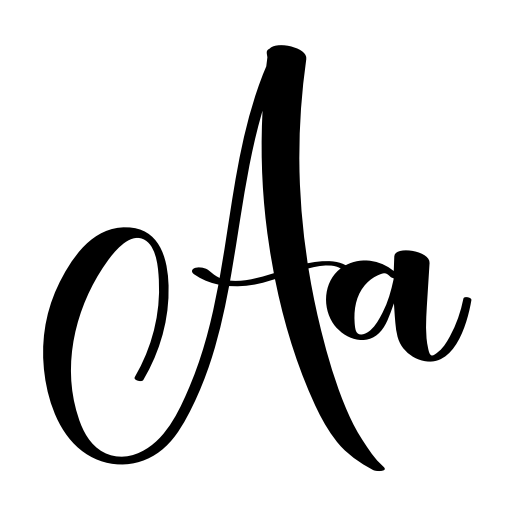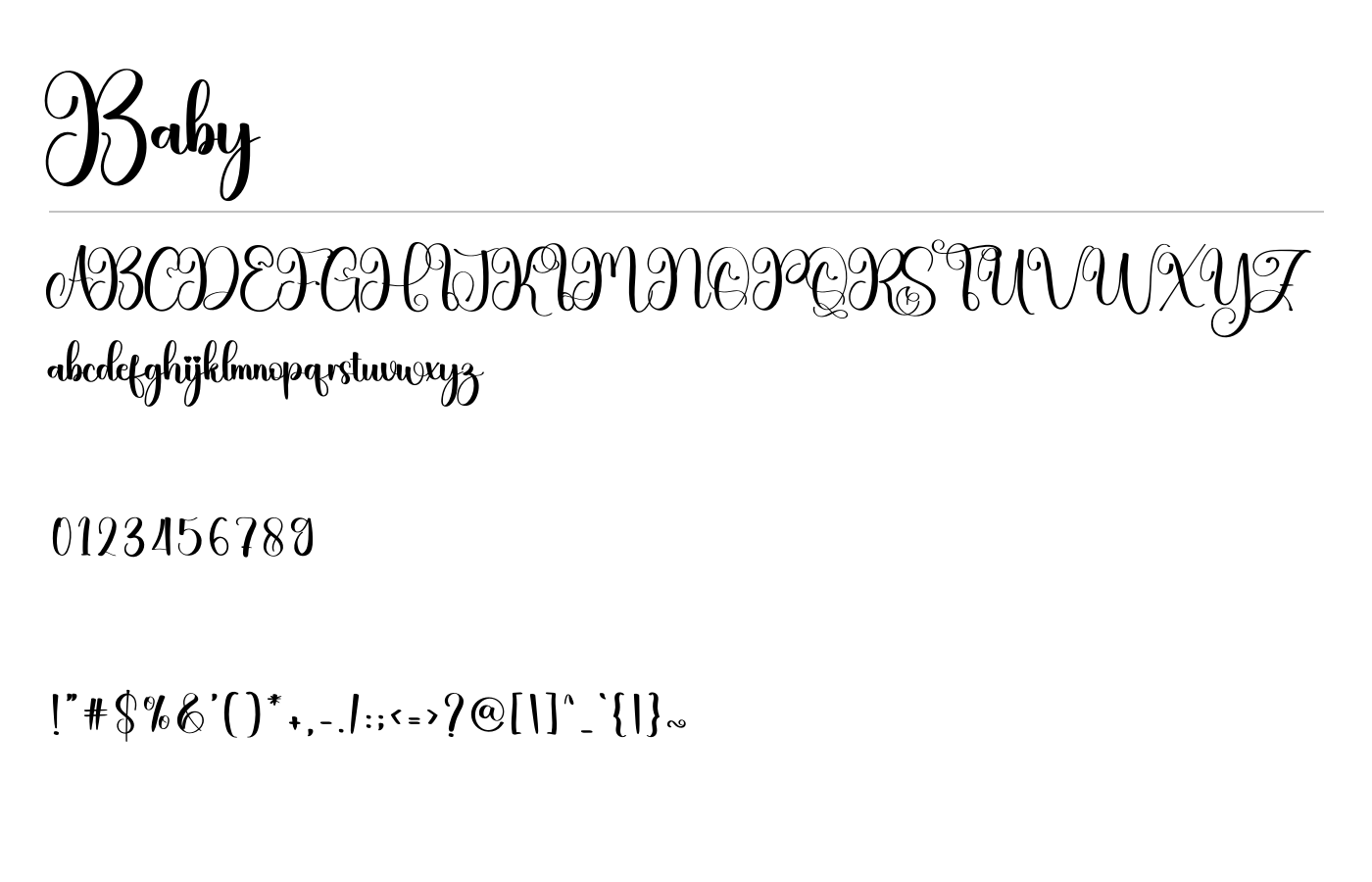
Baby Font is a decorative script typeface featuring elegant, swirling uppercase letters paired with smooth, bold lowercase forms. Its playful yet sophisticated style makes it ideal for use in invitations, branding, or any design that seeks a charming, handcrafted feel. The font’s distinctive flourishes and varied stroke widths add a graceful, feminine touch that works beautifully in headlines and logos.
Baby Font